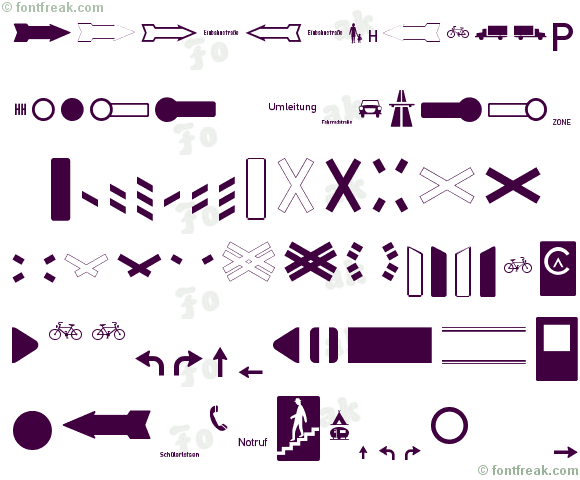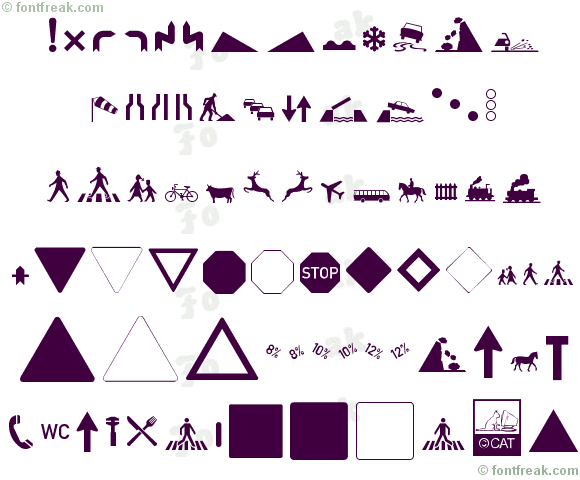
Zeichen Dreihundert Alt
Zeichen Zweihundert Alt
Zeichen Hundert Alt
Zeichen Dreihundert Alt is a distinctive display font designed by Peter Wiegel, released under a Creative Commons license in 2006. This font falls within the decorative category, offering a unique visual appeal that sets it apart from conventional typefaces. Its design showcases a playful yet structured aesthetic, characterized by bold stroke weights and intriguing geometric forms. The contrast between thick and thin lines adds a dynamic quality, while the spacing remains consistent, ensuring readability without sacrificing its artistic flair.
The visual characteristics of Zeichen Dreihundert Alt are marked by its decorative elements, which include sharp angles and unique shapes that create an eye-catching effect. This makes the font particularly well-suited for specific applications where creativity is key. It excels in use cases such as modern wedding invitations, where its distinctive style can add a personal touch; movie posters, where it can grab attention and convey a sense of drama; restaurant menus that aim for a contemporary feel; and branding materials for small businesses looking to stand out in a crowded market.
The target audience for Zeichen Dreihundert Alt includes graphic designers who appreciate innovative typography, small business owners seeking unique branding solutions, and content creators in search of an original typeface for their projects. This font is not just a tool; it is a statement piece that can elevate the visual impact of any design.